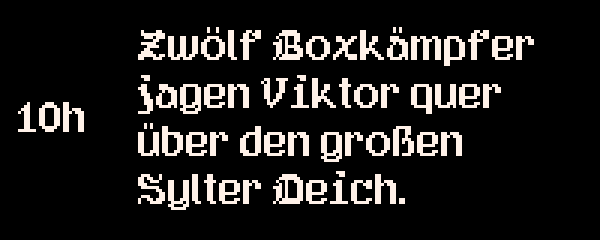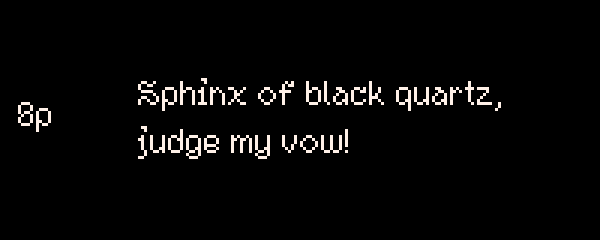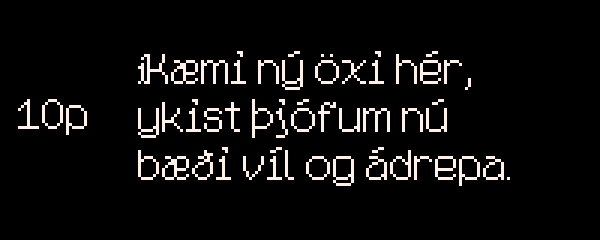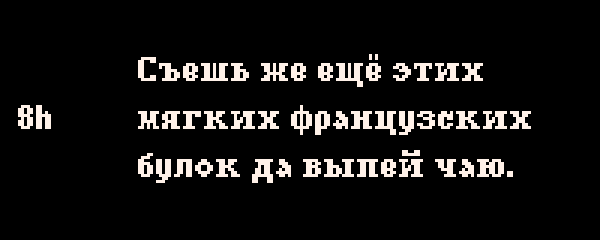
Pixel Font - Grandeur
Character set
ABCDEFGHIJKLMNOPQRSTUVWXYZ
abcdefghijklmnopqrstuvwxyz
0123456789.,;:?!"'+-=*%_()
[]{}~#&@©®™°^`|/\<>…€$£¢¿¡
“”‘’«»‹›„‚·•ÀÁÂÄÃÅÆÇÐÈÉÊËÌ
ÍÎÏÑÒÓÔÖÕØŒÙÚÛÜÝŸÞẞàáâäãåæ
çðèéêëìíîïñòóôöõøœùúûüýÿþß
АБВГДЕЁЖЗИЙКЛМНОПРСТУФХЦЧШ
ЩЪЫЬЭЮЯабвгдеёжзийклмнопрс
туфхцчшщъыьэюя
Grandeur is a premium fantasy pixel font available in 2 sizes + 2 weights. Localization-friendly, with support to EFIGS + Portuguese + Russian + Danish + Swedish + Norwegian + Icelandic…
nicht der große Sylter Deich 😭